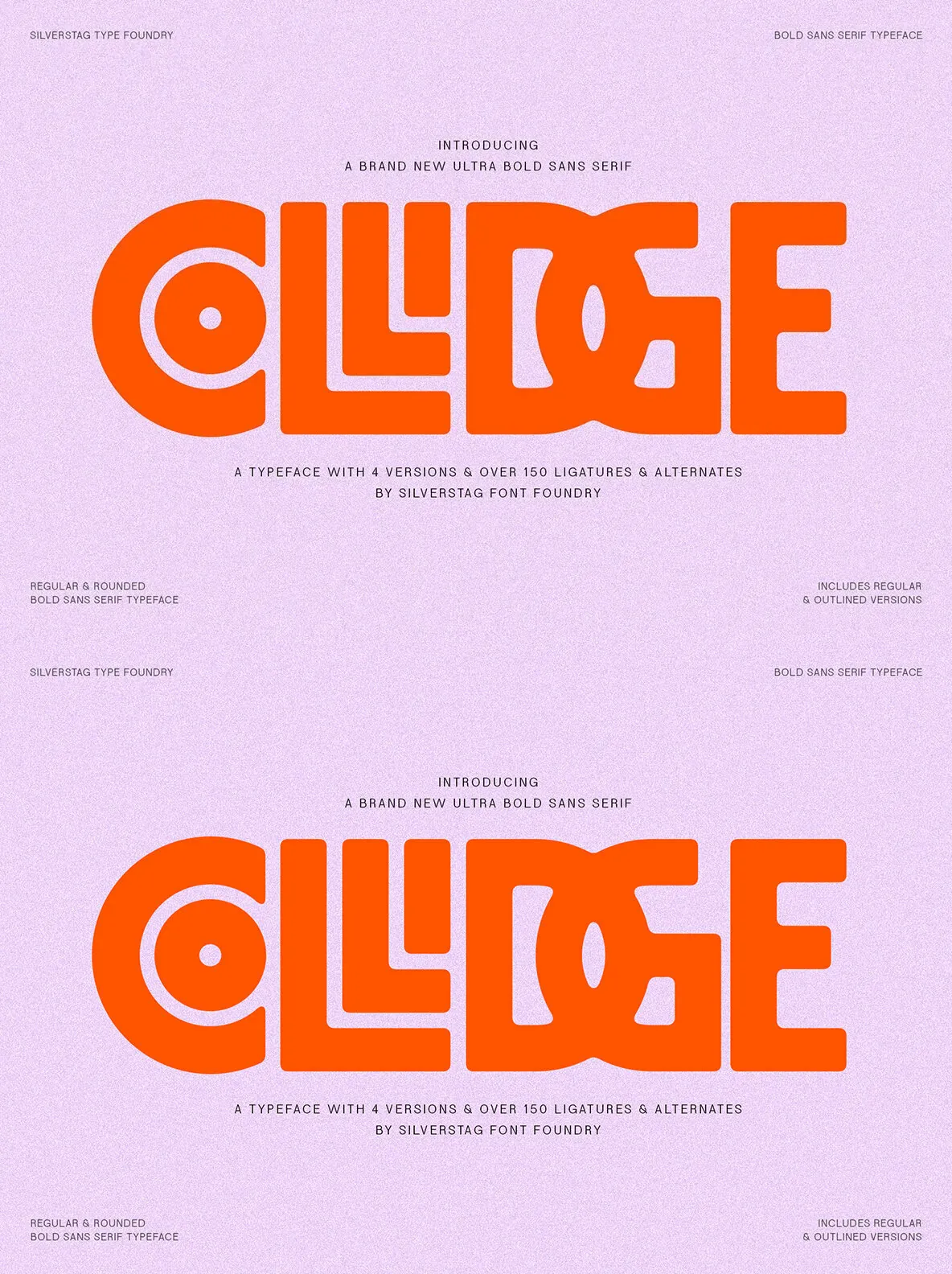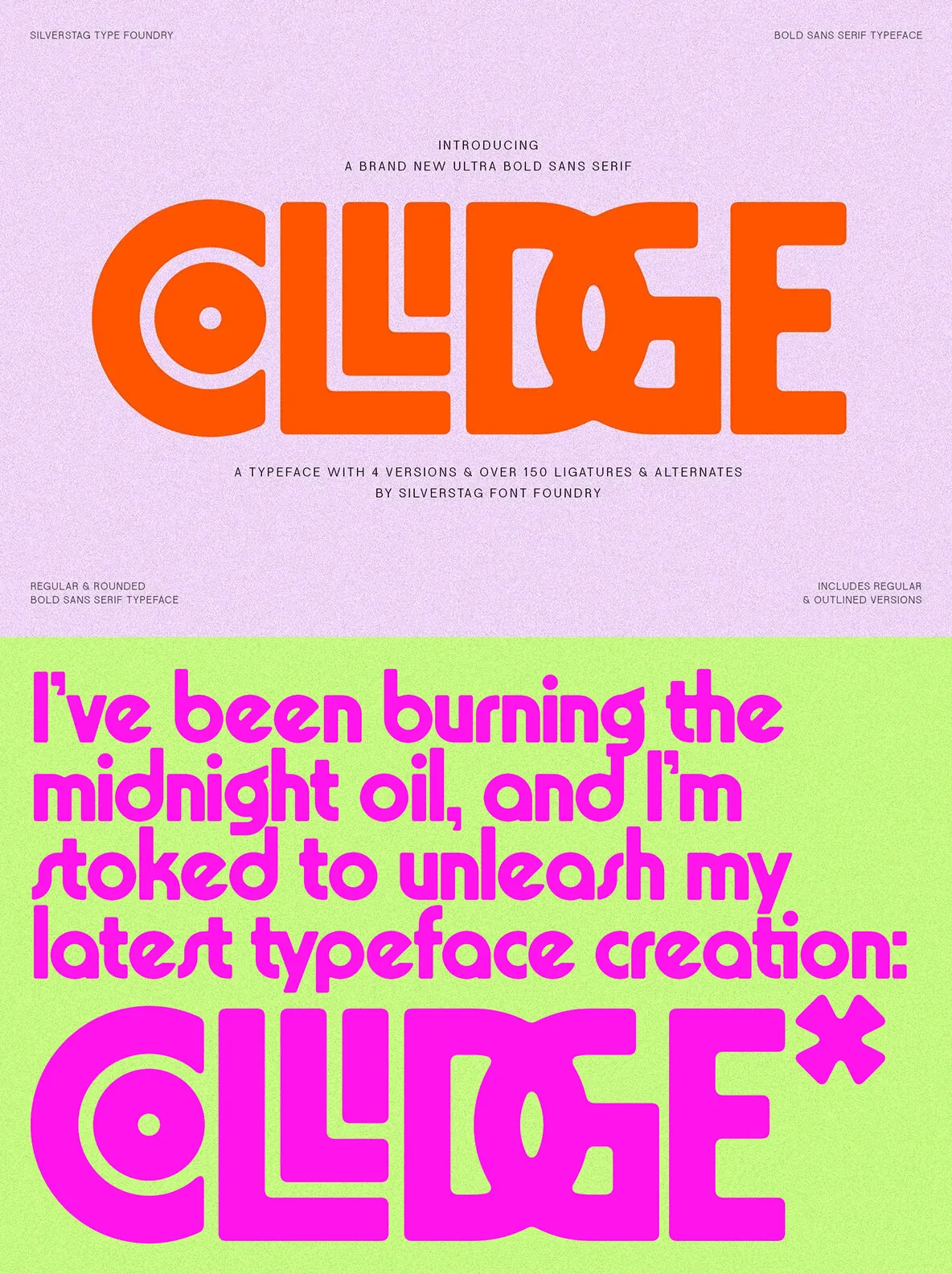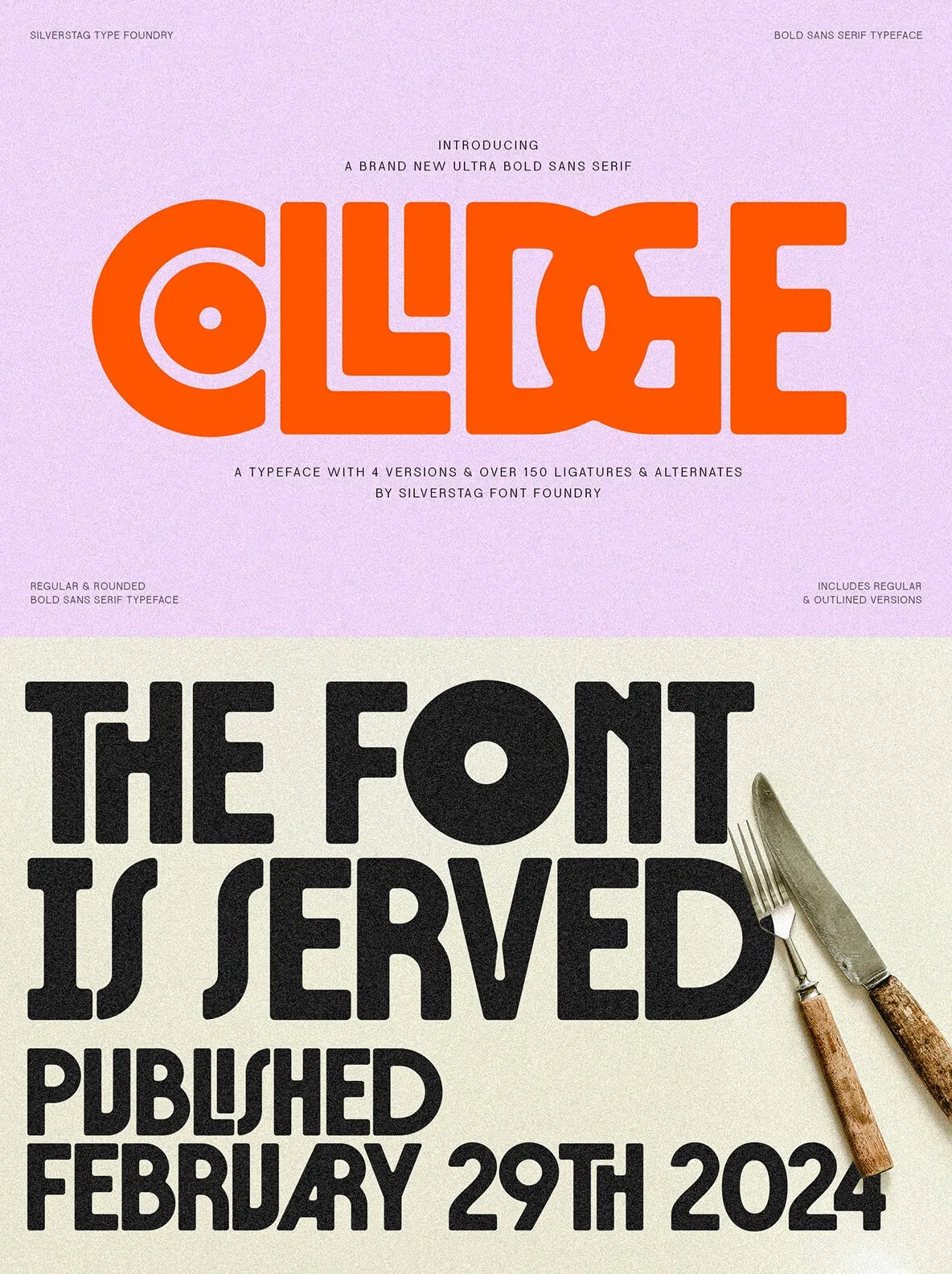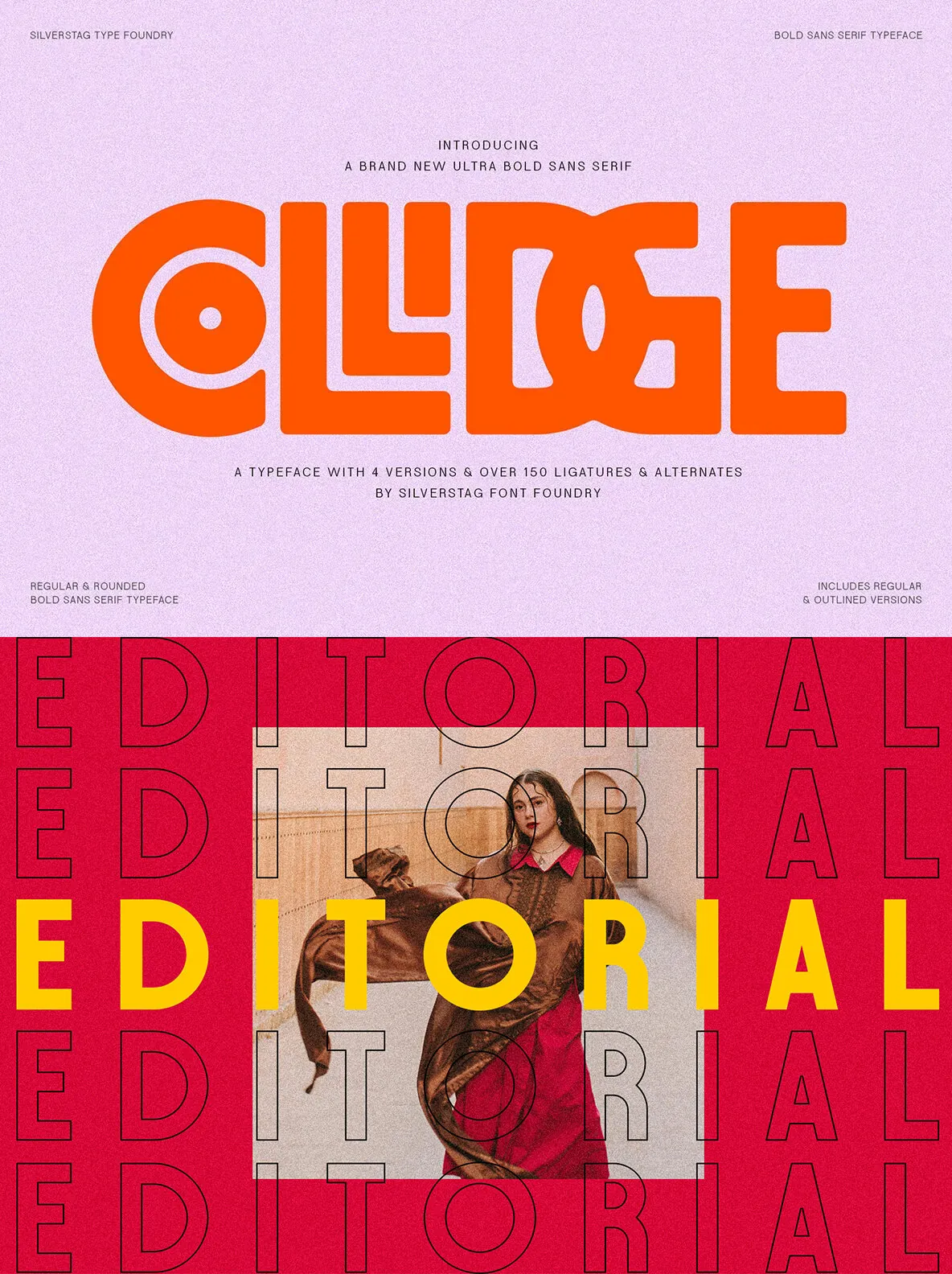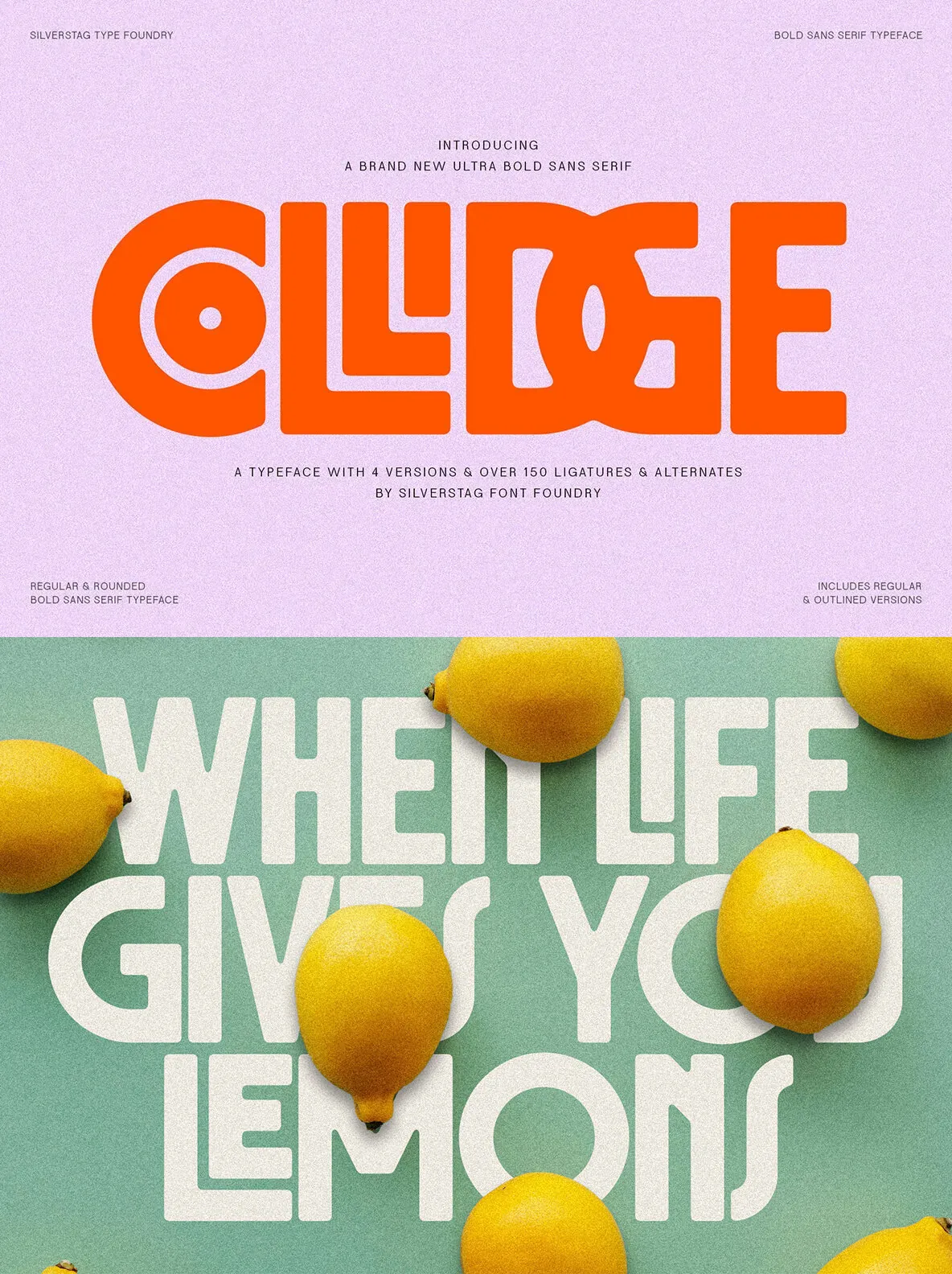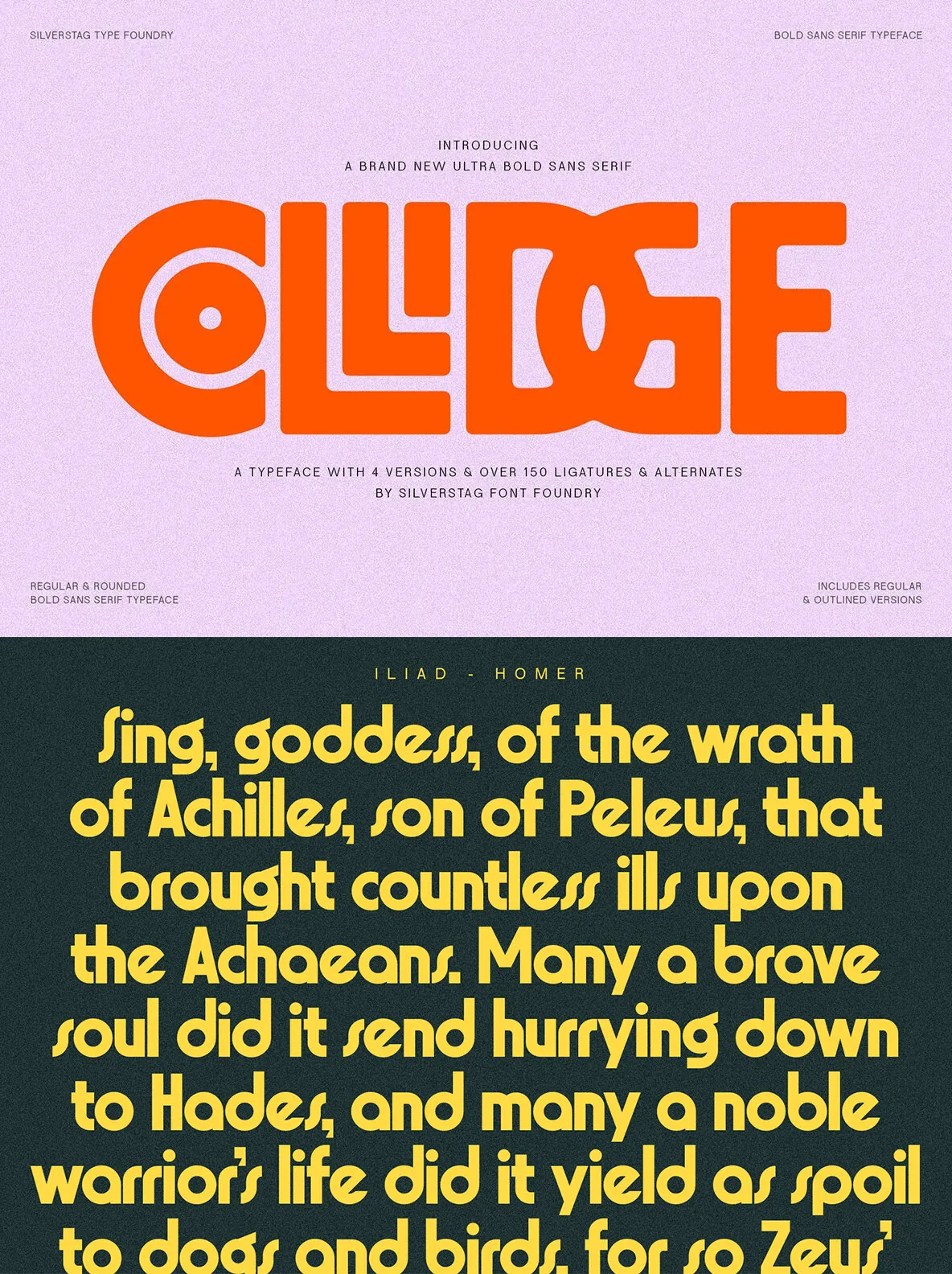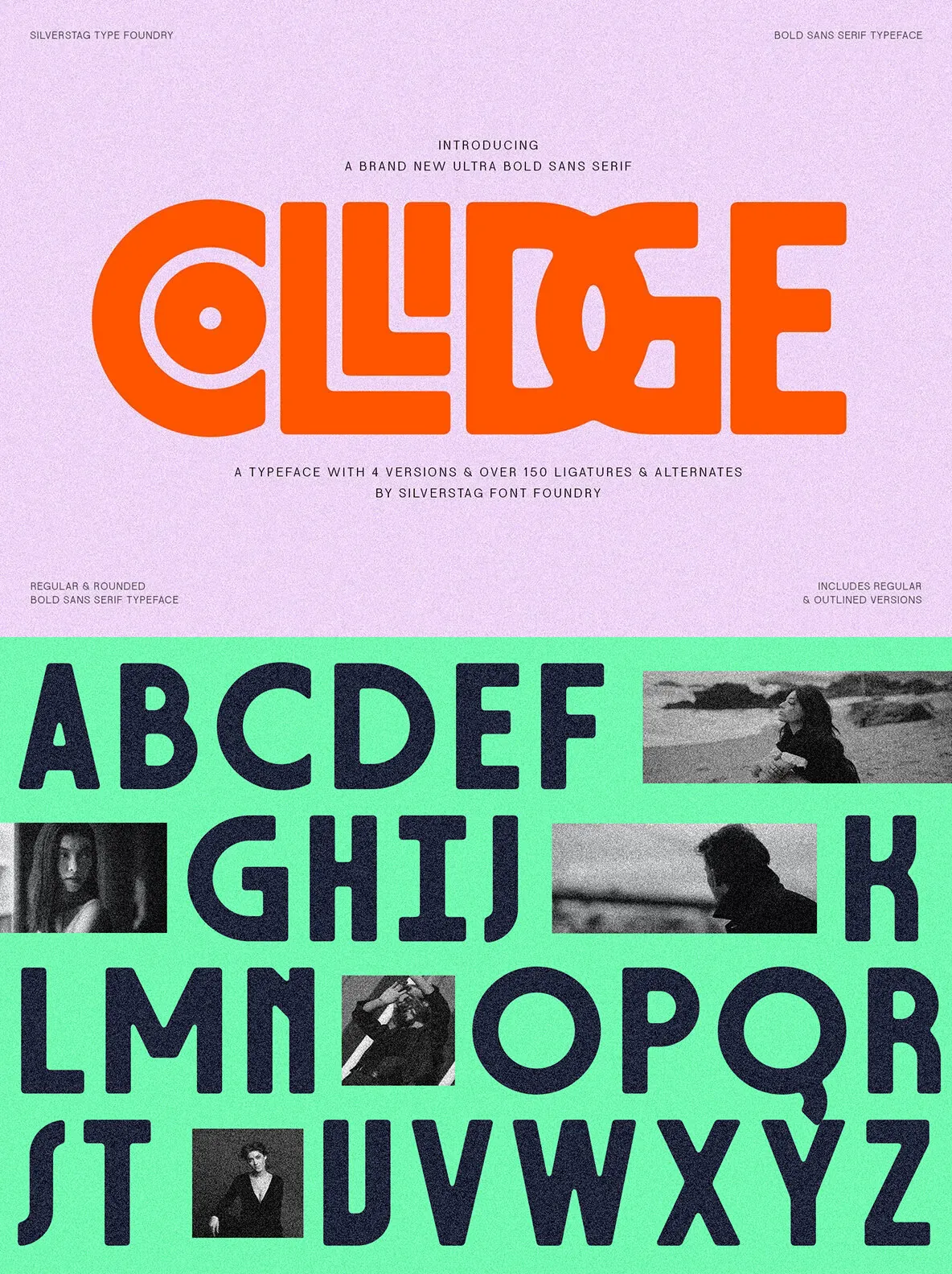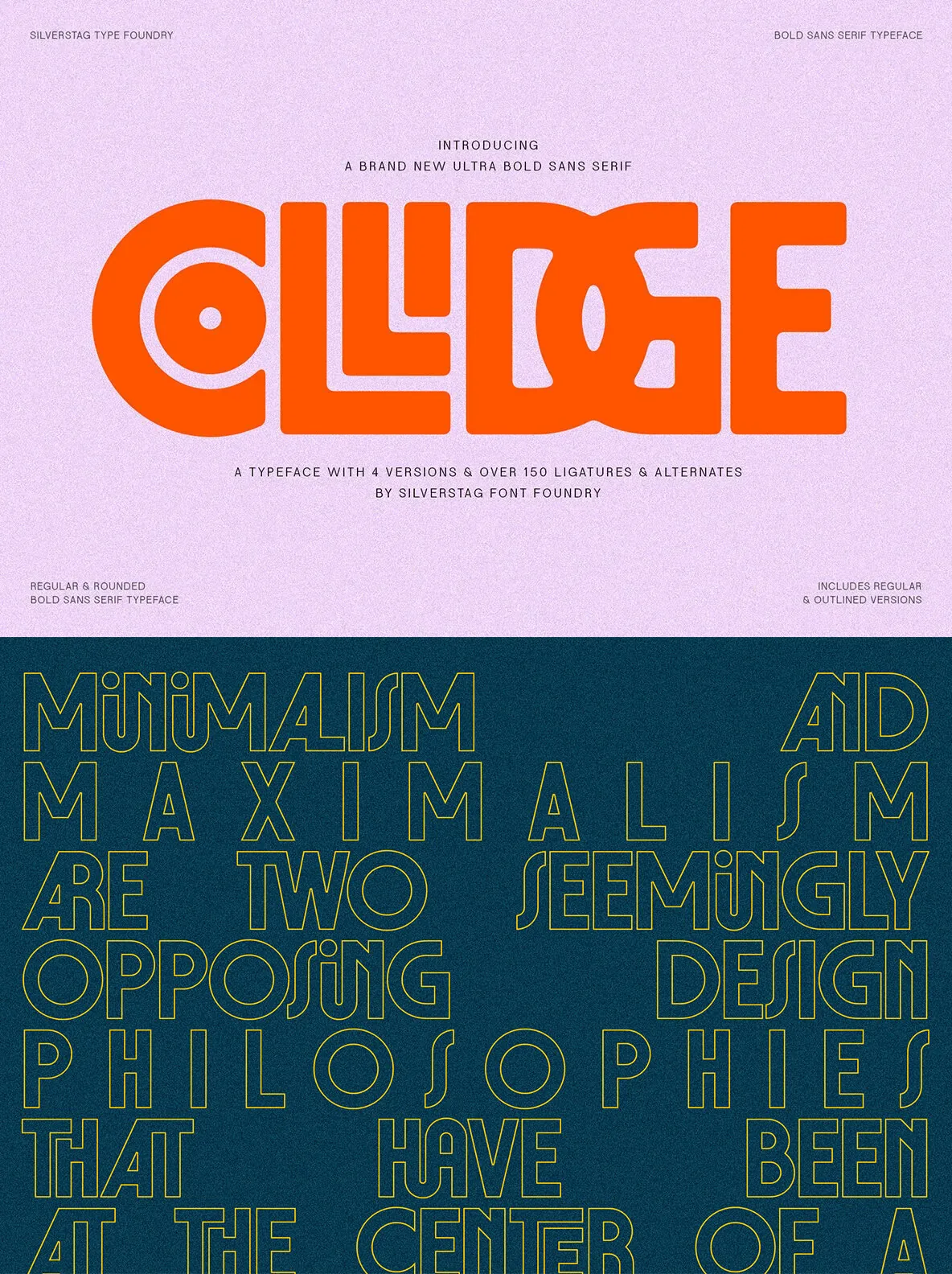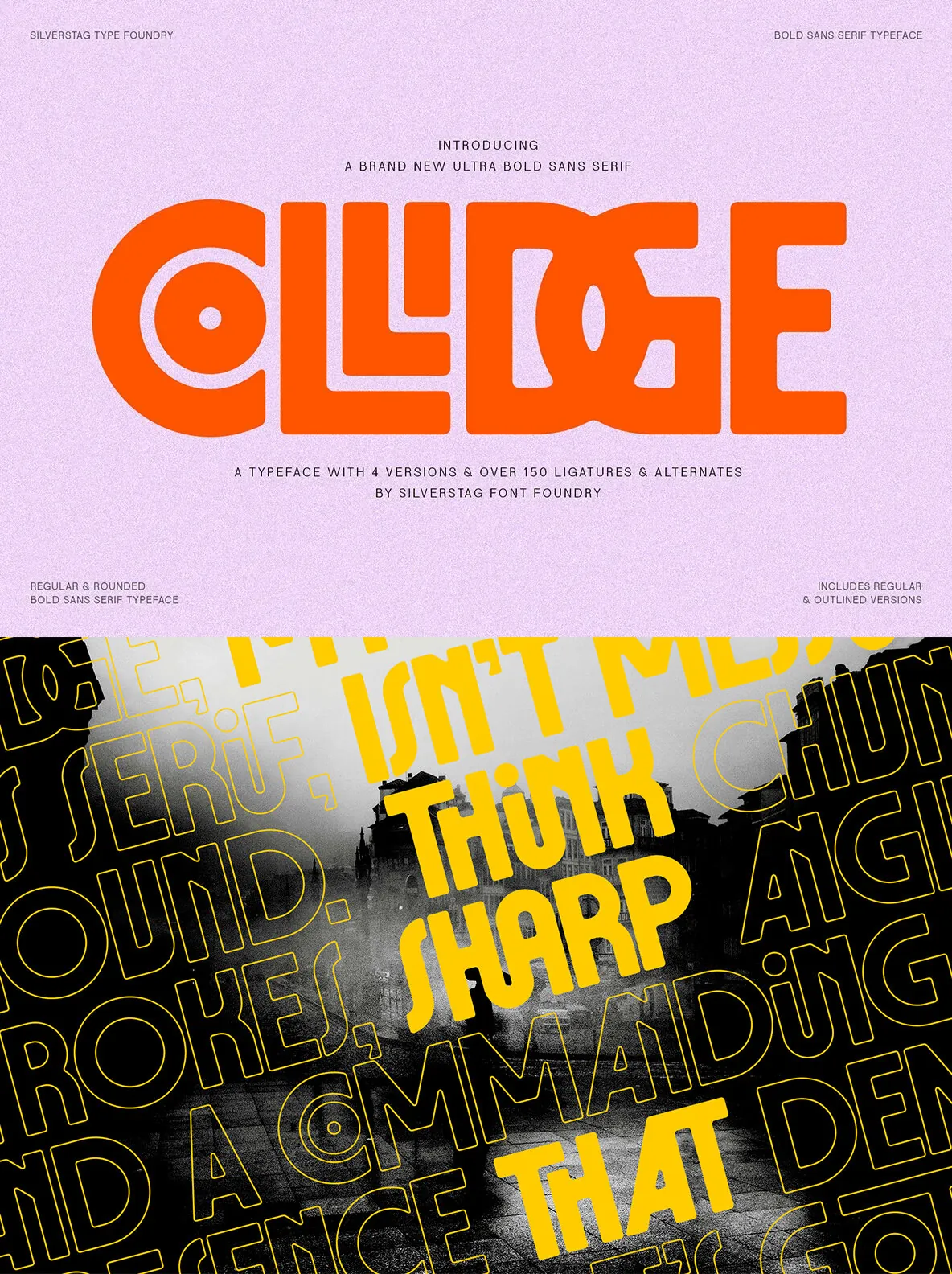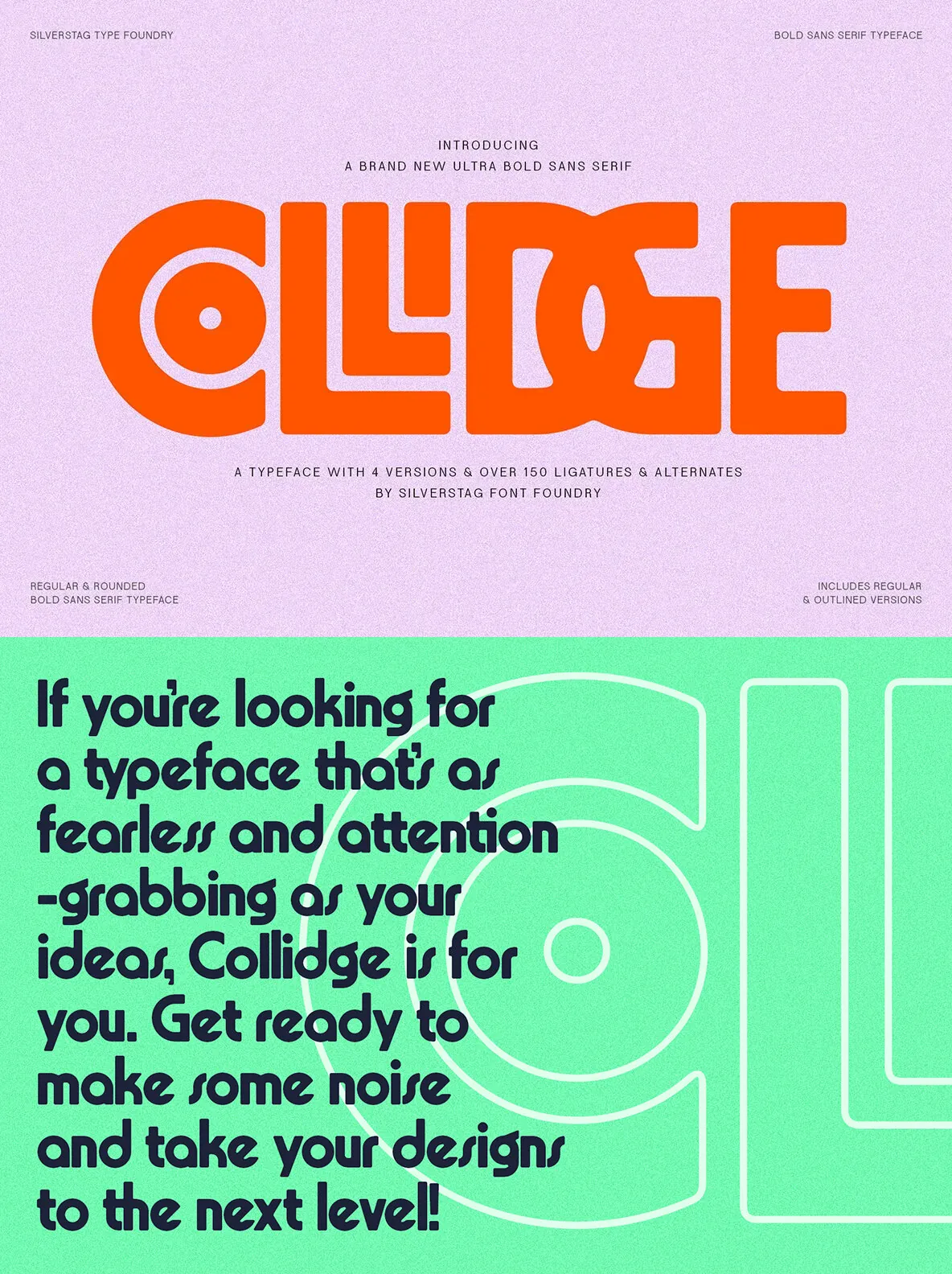
Collidge Font
Collidge — Loud Headlines, Clean Control
Collidge is a super bold sans serif built for designers who want maximum impact. Expect chunky strokes, sharp angles, and a commanding presence that reads instantly. The tone is modern and urban, suited to cutting-edge branding, attention-grabbing headlines, and high-contrast social media graphics.
You get four versatile versions—regular, regular outlined, rounded, and rounded outlined—so you can shift from crisp to softer edges without changing the underlying voice. Collidge also includes over 150 ligatures and alternates, made for experimental typography and those small, distinctive details that help a layout feel intentional.
For broad production work, Collidge supports over 90 languages. It handles multilingual typography with confidence, whether you’re building for international brands or speaking to a diverse audience across platforms. Collidge stays bold, readable, and unmistakable wherever it appears.
Picture Collidge emblazoned on:
Powerful sports posters and promos
Trendy streetwear labels
Edgy magazine layouts
Unforgettable website banners
Dynamic logo designs